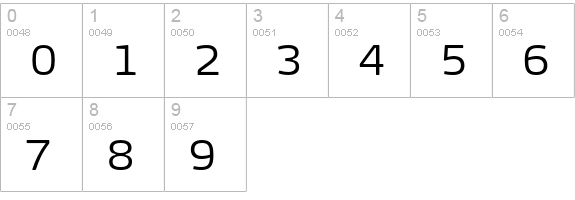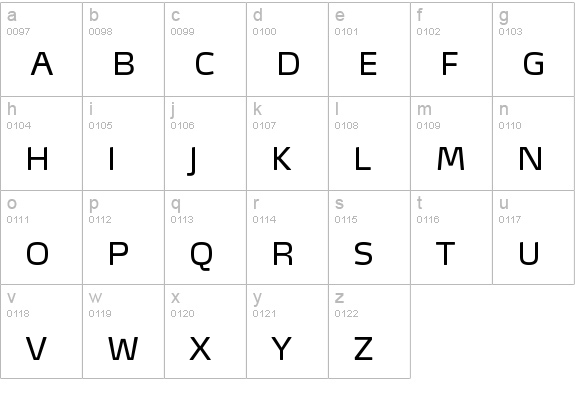
MaxTF-LightSC font is a sleek and modern typeface that exudes elegance and sophistication. Its clean lines and minimalistic design make it perfect for a wide range of projects, from branding to editorial design. The light weight of the font adds a touch of airiness and grace to any text, making it ideal for conveying a sense of refinement and style. One of the best features of MaxTF-LightSC font is that it is completely free to download. You can easily access this stunning typeface at FontsMarket.com, where you can enhance your design projects with its timeless appeal. Whether you're working on a website, a poster, a logo, or any other creative endeavor, MaxTF-LightSC font will bring a touch of sophistication and class to your work. Download it today and elevate your designs to new heights of elegance and professionalism.